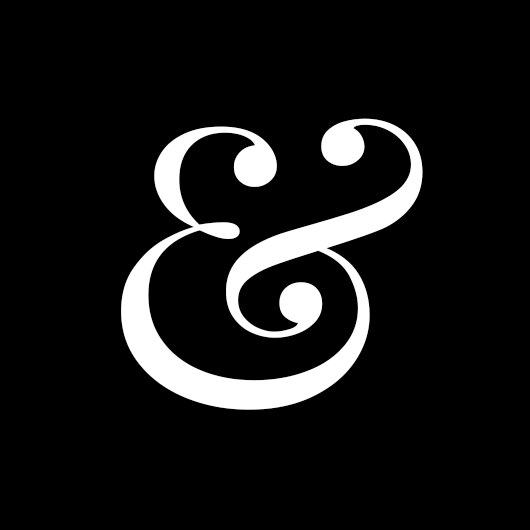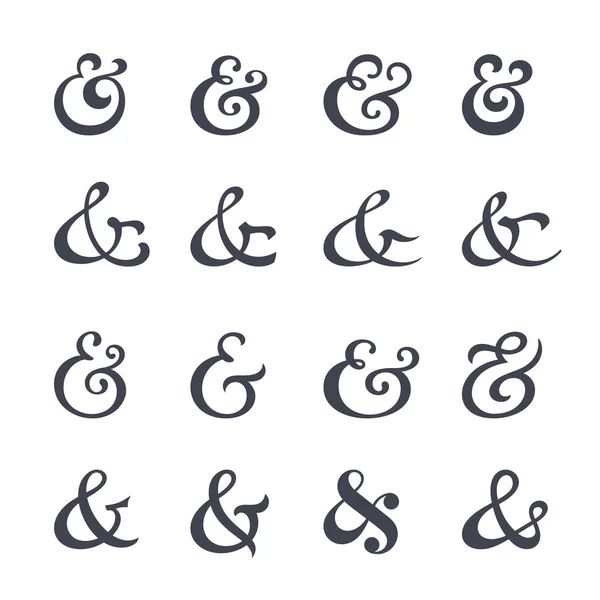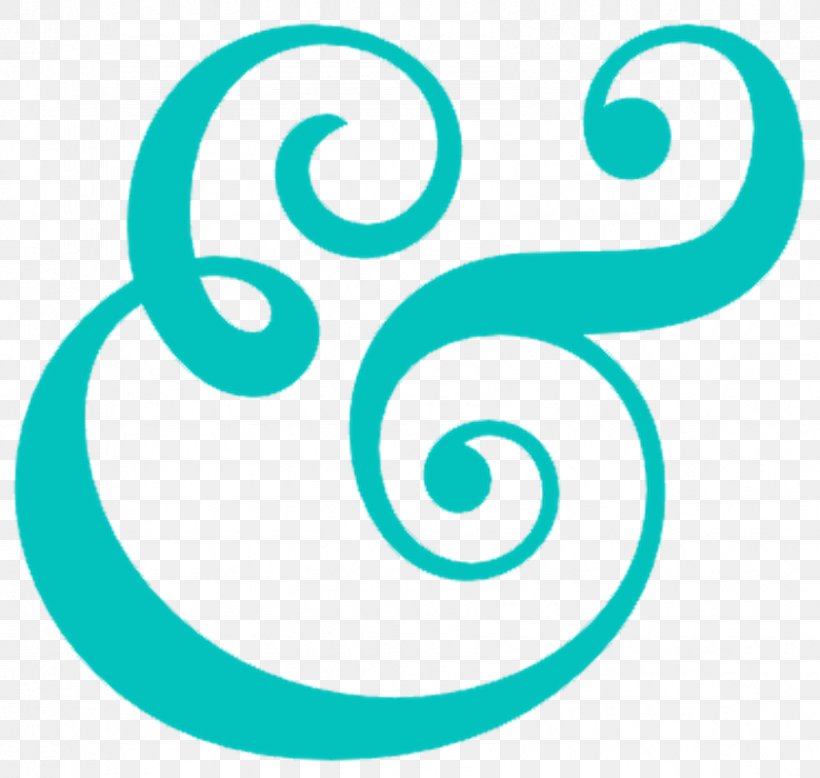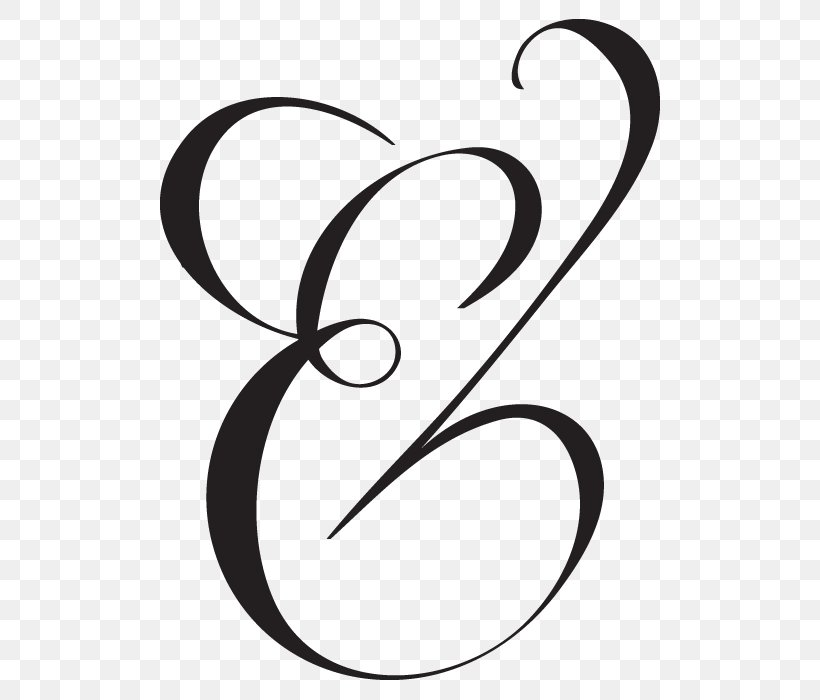
Fonts With The Best Ampersands The Best S
Calligraphy ampersand font. Adediala Afecta Amelia Annabella Asmara. Matchmaker Font Hand Drawn Calligraphy Font 3000 Add to cart. Its no secret that I love All Things Ampersand.
Ampersand Regular AmpersandVersion 1. The height of calligraphy was reached in the middle age where monks developed the narrow writing style called gothic allowing more words to fit on a single line as paper was expensive at the time. Ampersand and catchword lettering of vintage hand drawn font.
As a Graphic Designer I am constantly using the ampersand in my designs. My love for ampersands runs deep. Lovely Ampersand is a wedding crafted font.
Calligraphy Script Lovely Ampersand is an equally elegant and versatile font that will elevate any project you have in mind. Lovely Ampersand Script Font Found in. Feb 12 2021 - Explore Long Village Studios board Calligraphy - Ampersands Numbers followed by 447 people on Pinterest.
PLAYFUL AMPERSAND An ordinary symbol becomes a fashion icon is an experimental typography project taking the common and symbol and quite literally bends and reshapes it to create seven exquisite entities. An ampersand is the figure that is used to represent the word and it is widely recognised by this mark. Ampersand Symbol Calligraphy Practice Sheets.
The symbol originates from the blending of the letter E and T from the Latin word et. See more ideas about lettering fonts lettering alphabet fonts alphabet. See more ideas about lettering alphabet lettering fonts lettering.
I went through my entire collection of fonts which is crazy large and picked 40 of my favorite ampersands. 00 Ampersand Version 1. The ampersand is my favorite character so I had to turn it into a free brush calligraphy practice sheet set.
The traditional ampersand was derived in the 1st century by combining the letters e and t. See more ideas about ampersands hand lettering lettering. Ampersand Symbol Calligraphy Practice Sheets.